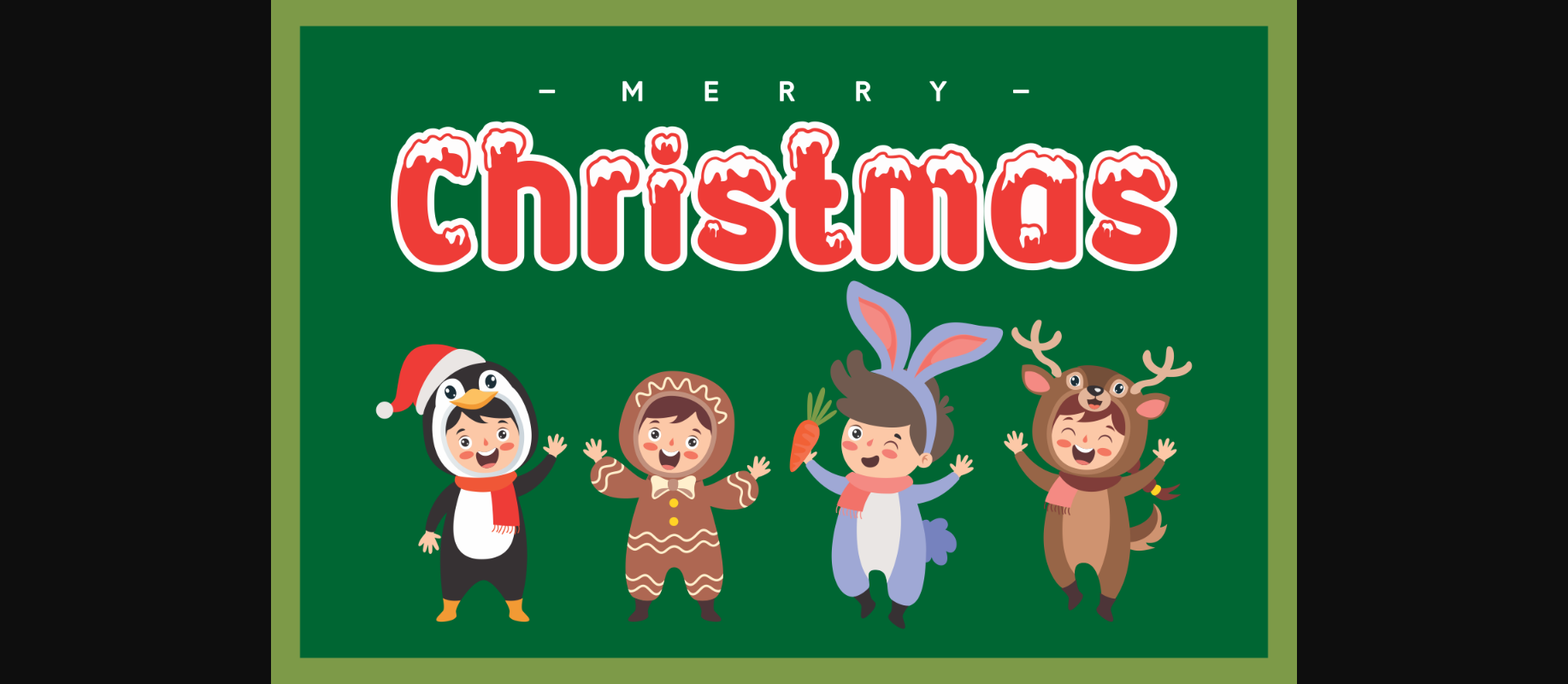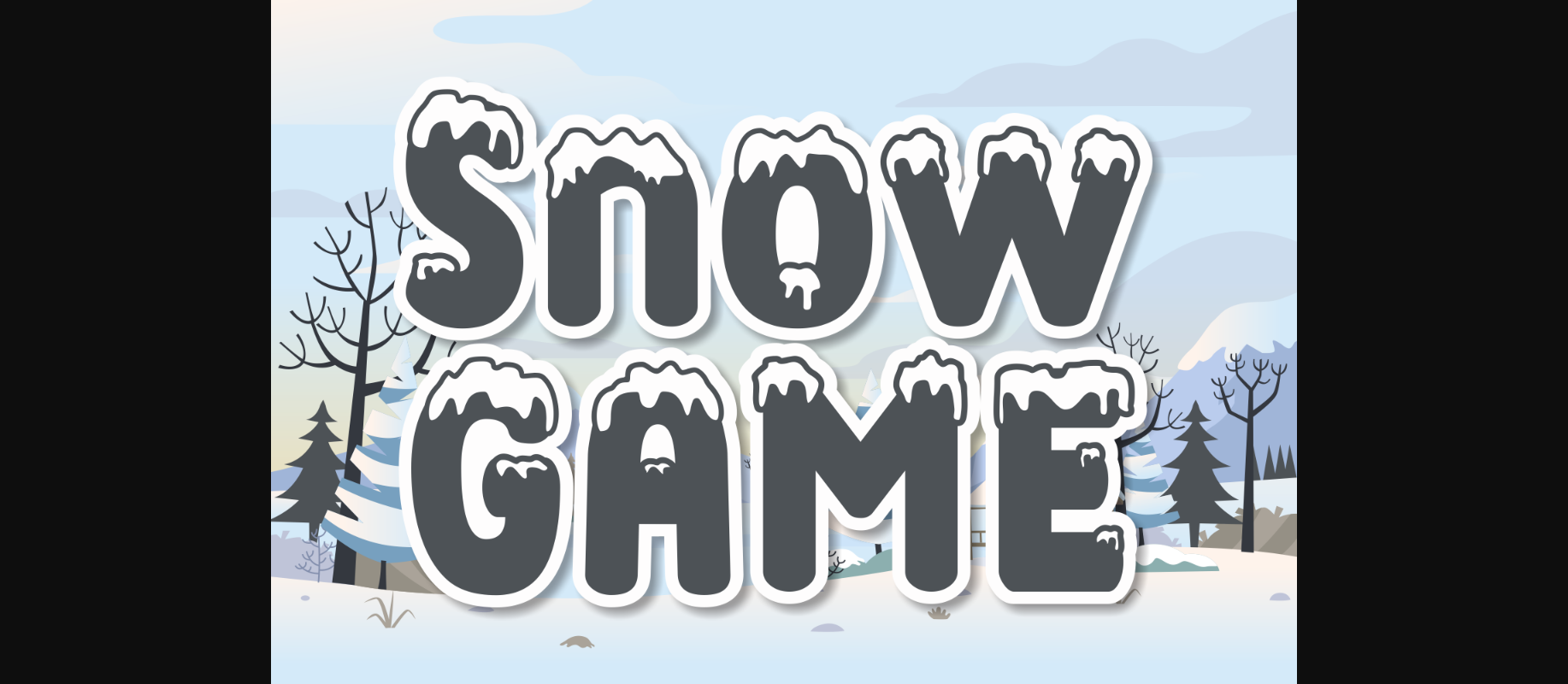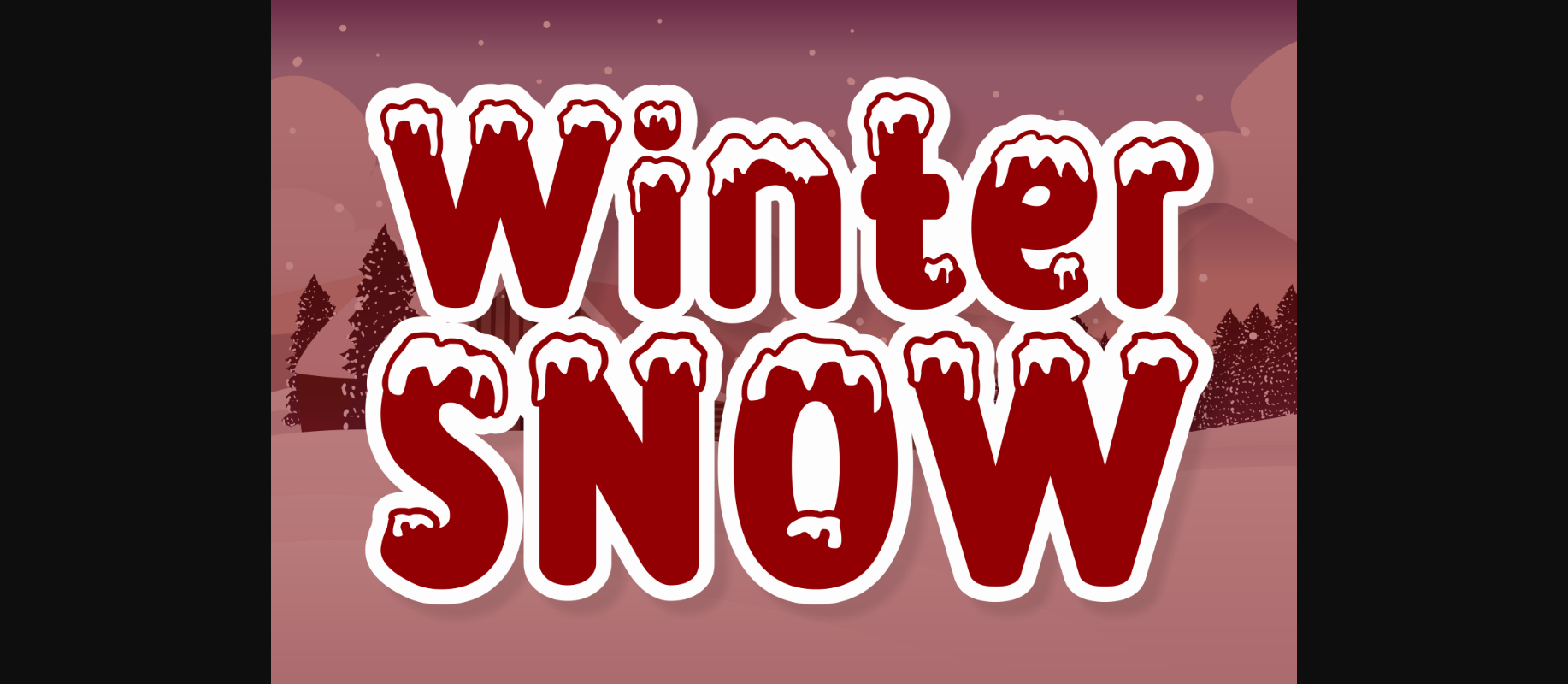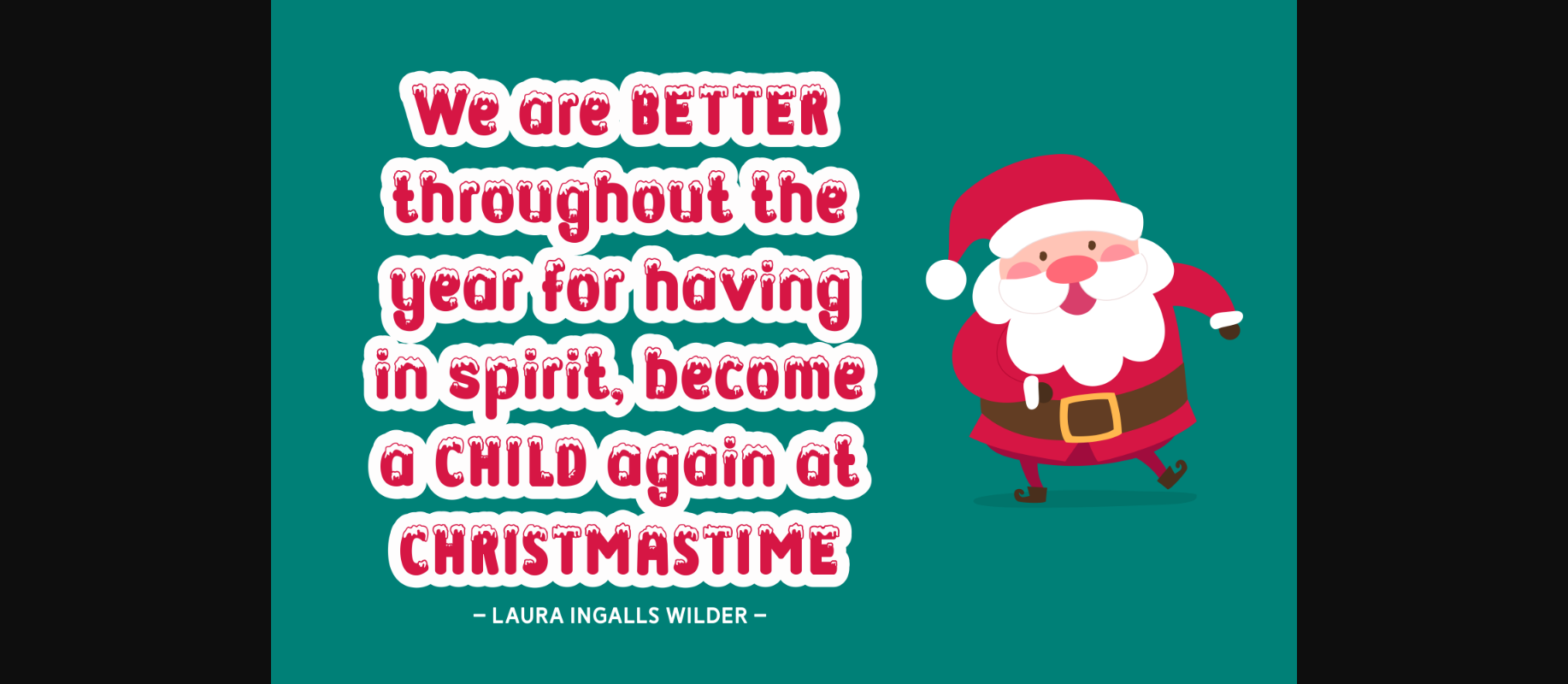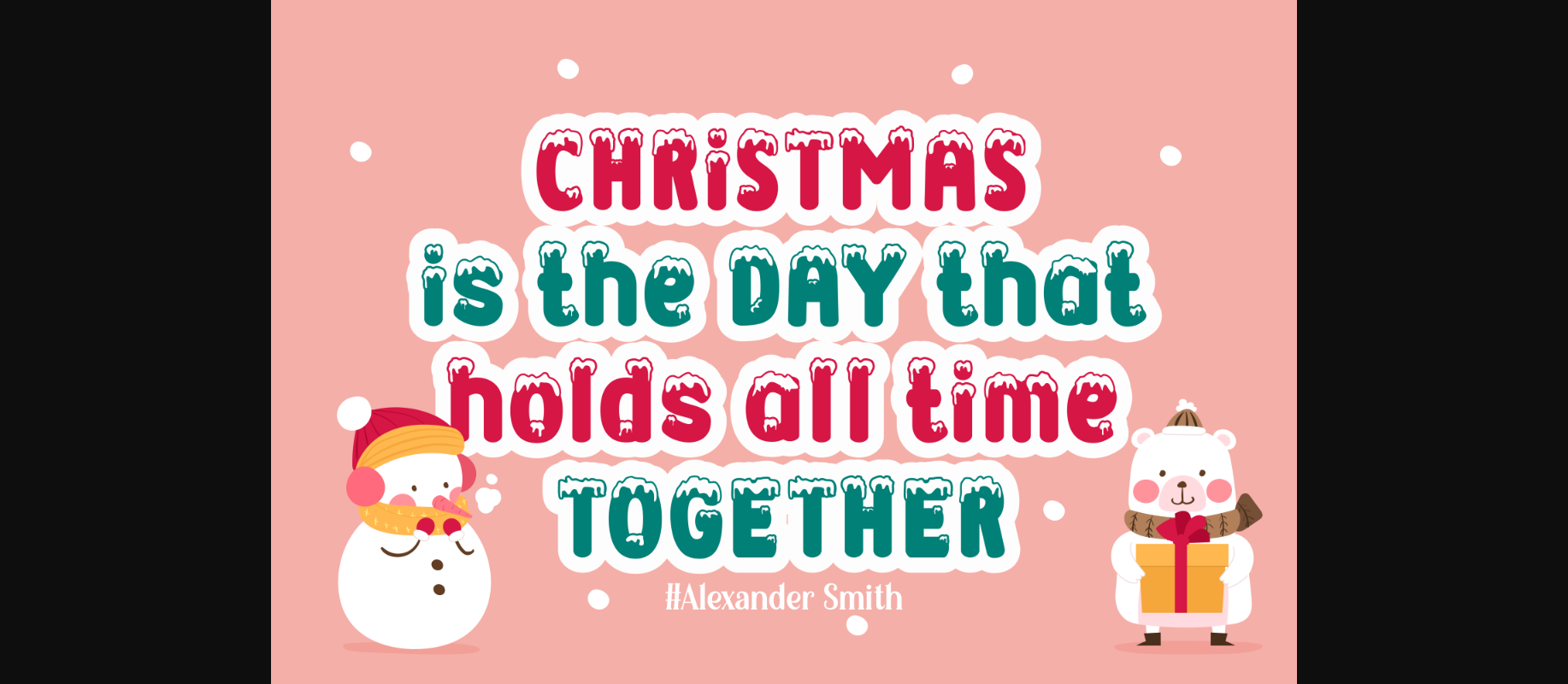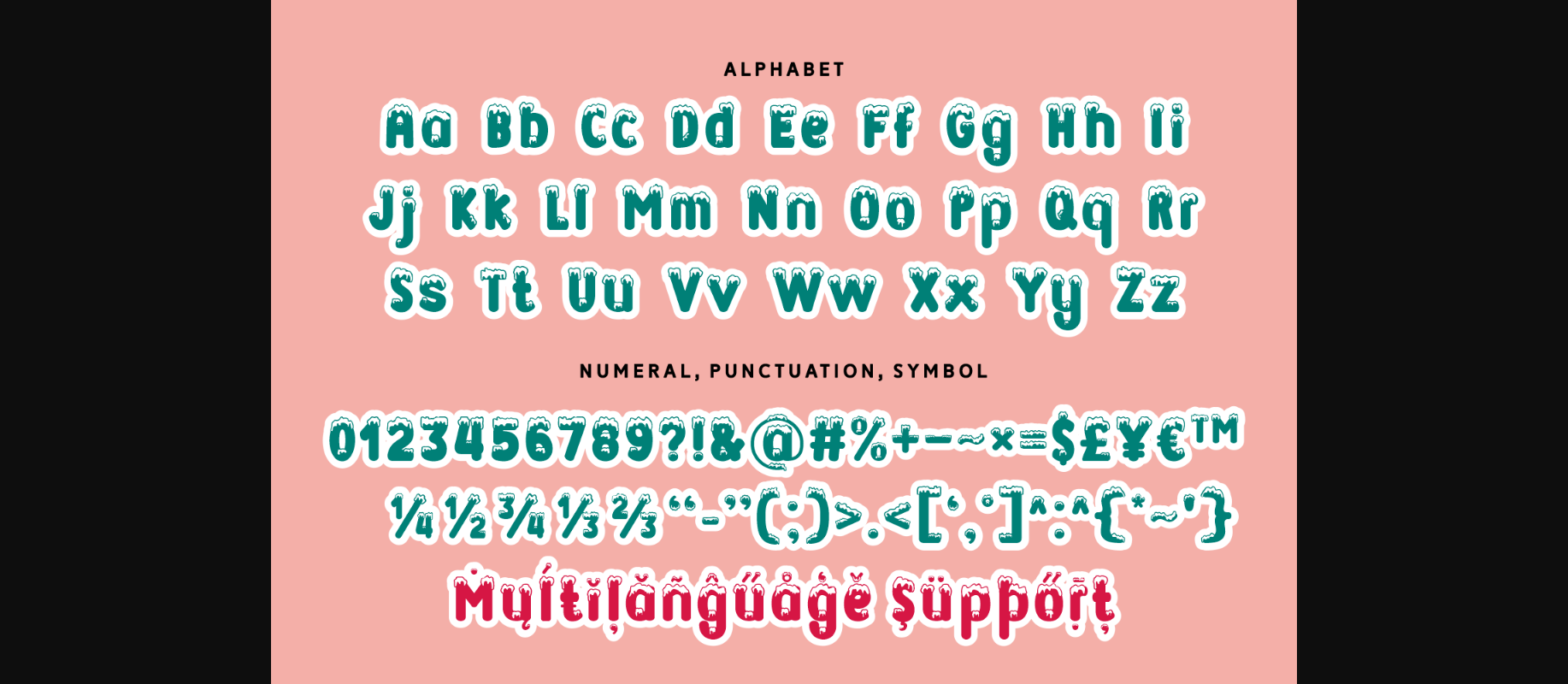
HomeDecorative FontsSnow Game Font Decorative Fonts Snow Game Font FacebookXPinterestWhatsApp 1 of 8 ... Snow Game Font Poster 2... Snow Game Font Poster 3... Snow Game Font Poster 4... Snow Game Font Poster 5... Snow Game Font Poster 6... Snow Game Font Poster 7... Snow Game Font Poster 8... About Snow Game Font The Snow Game is a fun decorative font, perfect to use for your winter and Christmas themed designs. Each character is covered in a layer of snow, setting the cheery mood in any type of design that you apply it to. DOWNLOAD NOW People also explored Shark Font Cartoon Fantasi Font Gurita Font Ganiser Sans Font Sorry Font Simsalabim Terra Ignota Mawar Merah Font With Valentina Font 537 0 TagsSnow Game Font Previous articleVibes Inside FontNext articleLove Sky Font LEAVE A REPLY Cancel reply Comment: Please enter your comment! Name:* Please enter your name here Email:* You have entered an incorrect email address! Please enter your email address here Website: Save my name, email, and website in this browser for the next time I comment. Personal Use Free Hello, How Are You? Personal Use Free Read more about this font Knox Personal Use Free Read more about this font Token No 721 Personal Use Free Read more about this font Berry Personal Use Free Read more about this font BLOG How to Cut Any Font on Cricut: Convert a Font to SVG (Free) Turn any font into a clean SVG so it cuts crisp on Cricut - a quick 3-step workflow using a free font-to-SVG tool. Where to Buy American Fonts Online in 2024 The 10 Best Handwriting Fonts to Add Personality to Your Designs Best Fonts for YouTube Videos: Make Your Thumbnails Stand Out